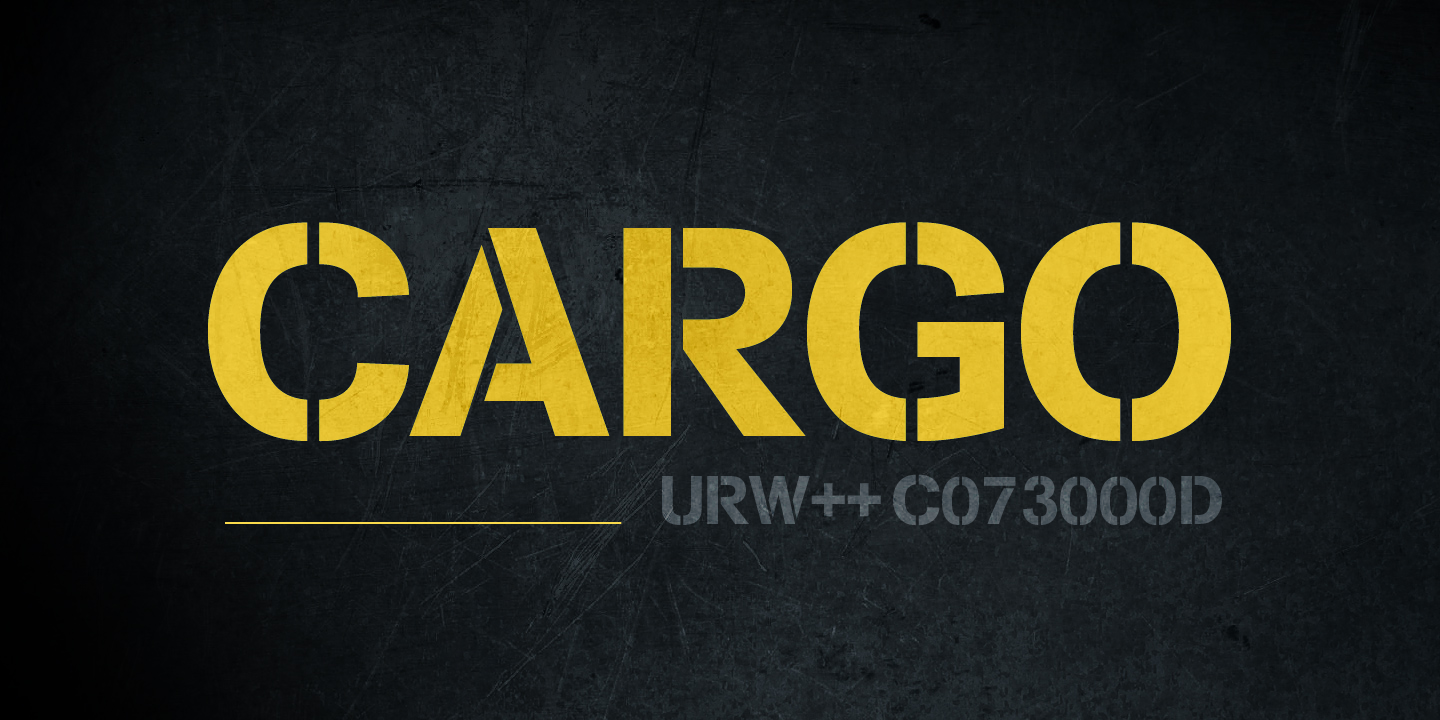
Cargo Font is a robust and powerfully utilitarian typeface, perfectly suited for projects that demand a strong, industrial presence and an unmistakable sense of efficiency. Imagine it dominating the branding for a global logistics company, adding a durable and no-nonsense edge to heavy-duty equipment labeling, or making an unmissable statement on packaging for durable goods. It's also an excellent choice for crafting striking headlines for transportation industries, designing impactful merchandise for workwear brands, or bringing a raw, assertive vibe to digital content and advertisements where reliability and strength are key. If you're looking to convey resilience, productivity, and an undeniable spirit of logistical prowess, Cargo Font is an outstanding selection.
What makes Cargo Font so exciting? It’s its unparalleled ability to combine a solid, unyielding construction with distinctive, often condensed or blocky letterforms that immediately convey strength and functionality. This font is designed to stand out, with its thick strokes and uncompromising presence making it ideal for display purposes where maximum visibility and a clear message are paramount. Despite its powerful visual weight, Cargo Font is crafted to maintain excellent readability, ensuring that your message is delivered with both clarity and significant force. Designers will appreciate its versatility in creating designs that are both visually assertive and deeply memorable, making it a go-to choice for projects that need to embody raw power and a sense of unwavering permanence.
The Cargo Font family is typically designed to maximize its formidable and distinctive aesthetic. While it might primarily feature a strong Regular or Bold weight that perfectly embodies its unique style, you could find variations that enhance its utility, such as slightly distressed versions for a more rugged, weathered feel, or condensed styles for powerful headlines in limited spaces. These variations ensure that Cargo Font maintains its cohesive and high-impact visual identity across different design applications, from monumental titles to supporting text that still carries significant weight. Discover the formidable power of Cargo Font Free Download and infuse your designs with an unforgettable sense of steadfast strength and industrial purpose.